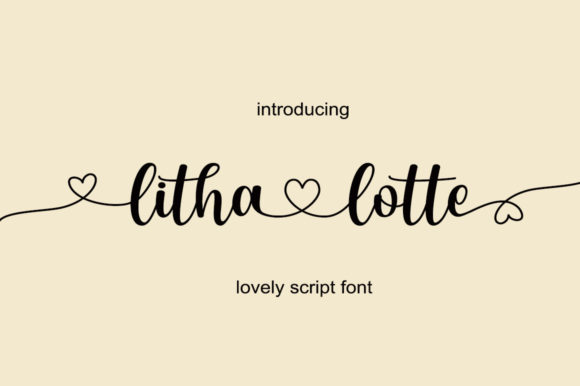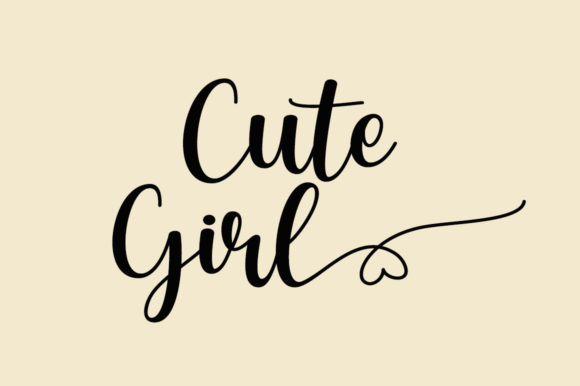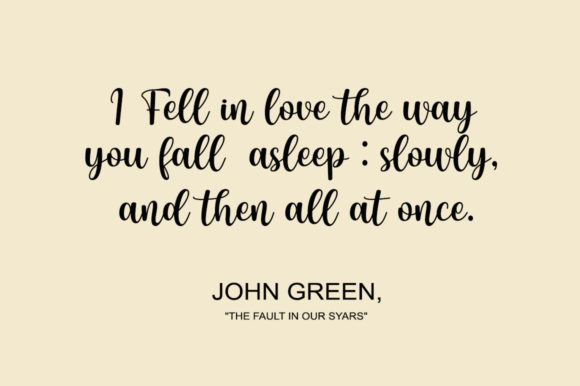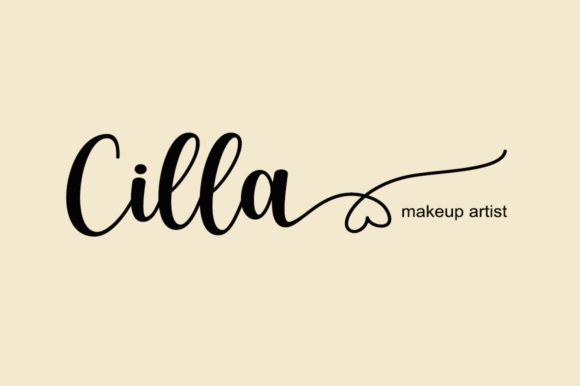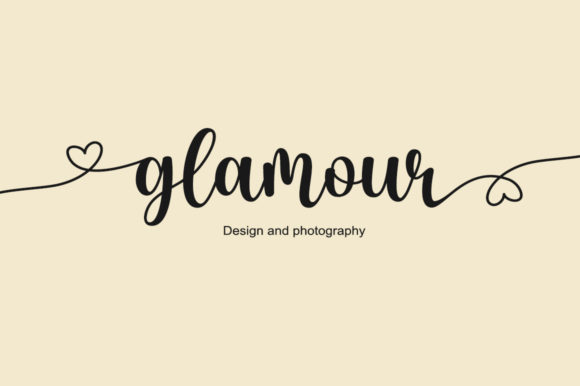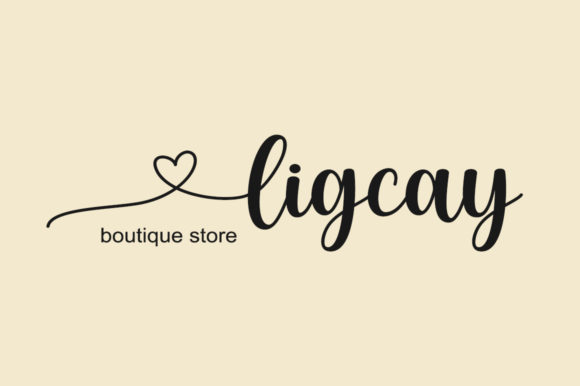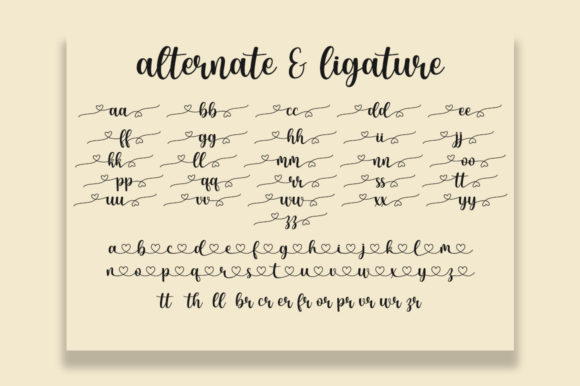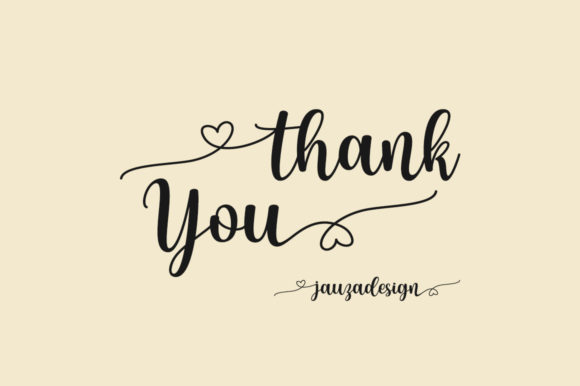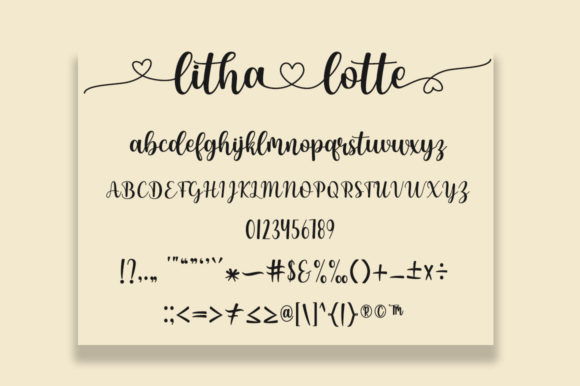
Litha Lotte Font
About Litha Lotte Font
Litha Lotte is a romantic and sweet calligraphy typeface with characters that dance along the baseline. It will add a luxury spark to any design project that you wish to create! This font is PUA encoded which means you can access all of the amazing glyphs and ligatures with ease!